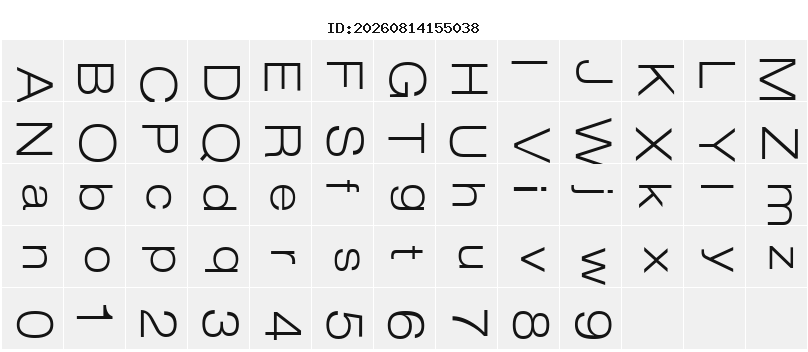
StraitOtherSide Preview
About StraitOtherSide.ttf
StraitOtherSide.ttf is a modern, elegant sans-serif font designed for ultimate readability and visual harmony. Perfect for branding, headlines, web design, and print materials.